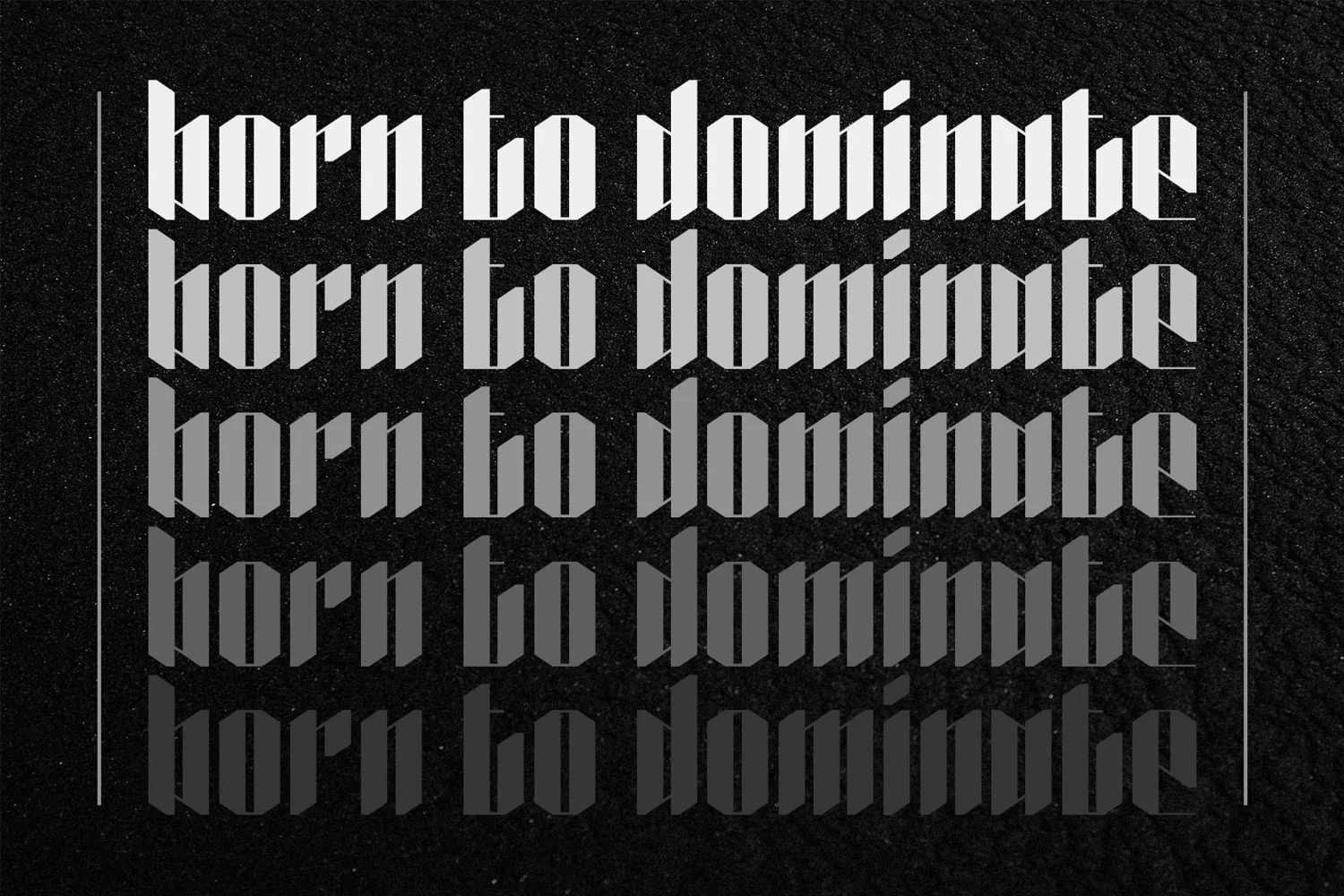
Edge is a blackletter display typeface. Perfect for display, poster, quotes, film, craft needs, book cover, business card, packaging, merchandise, branding, logo, logotype, header, title, and many more.